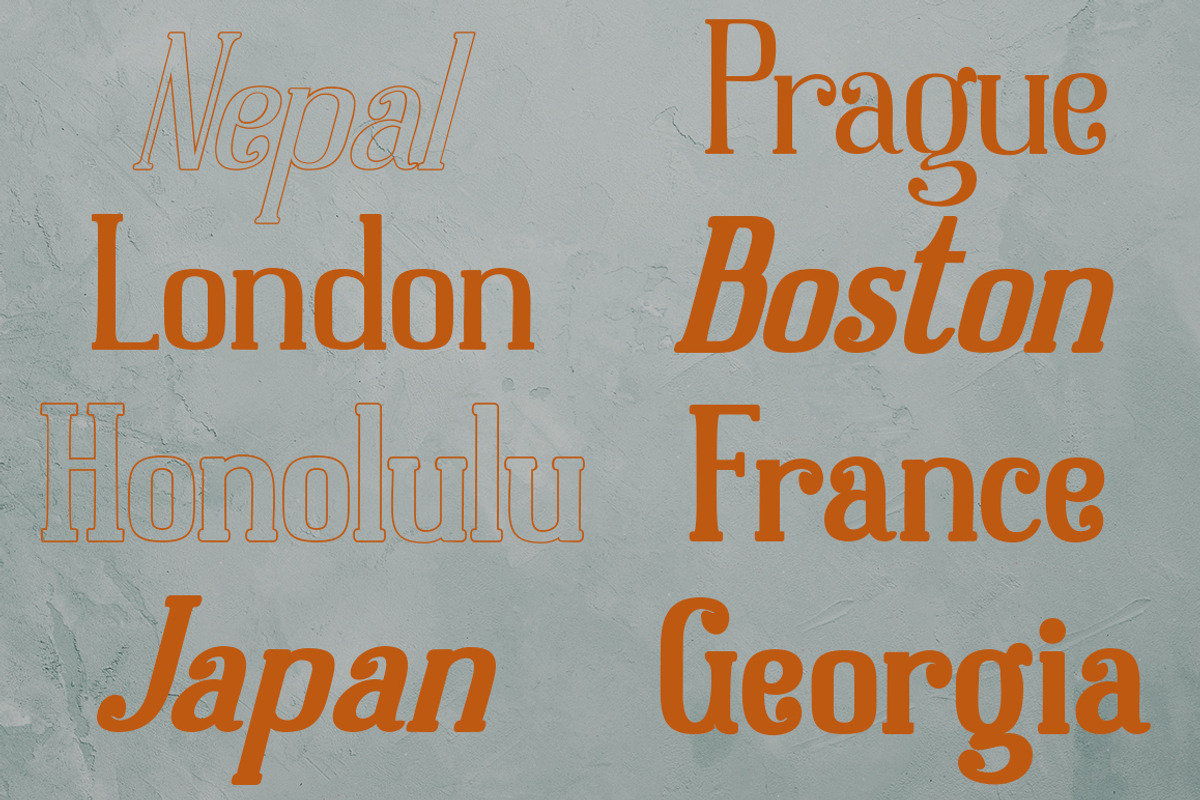
Dolphins Serif with Decorative
The Dolphins is unique, this serif typeface consists of 16 fonts and is equipped with alternative decorative letters to be able to handle most typographic applications ranging from branding to body copying with various weights and inherent readability.
Complete with decorative letters will be perfect and look luxurious for many projects such as fashion, magazines, logos, branding, photography, invitations, quotes, blog headings, posters, advertisements, postcards, etc.